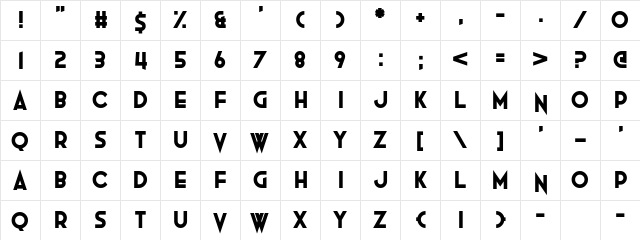
Emerald Grey Regular
Design Context for Emerald Grey Typeface
Emerald Grey is a composed and adaptable typeface that performs quietly and consistently across a wide range of design contexts.
Pro Tip: Use Emerald Grey in both headline and body roles to test its range before committing to a single application.